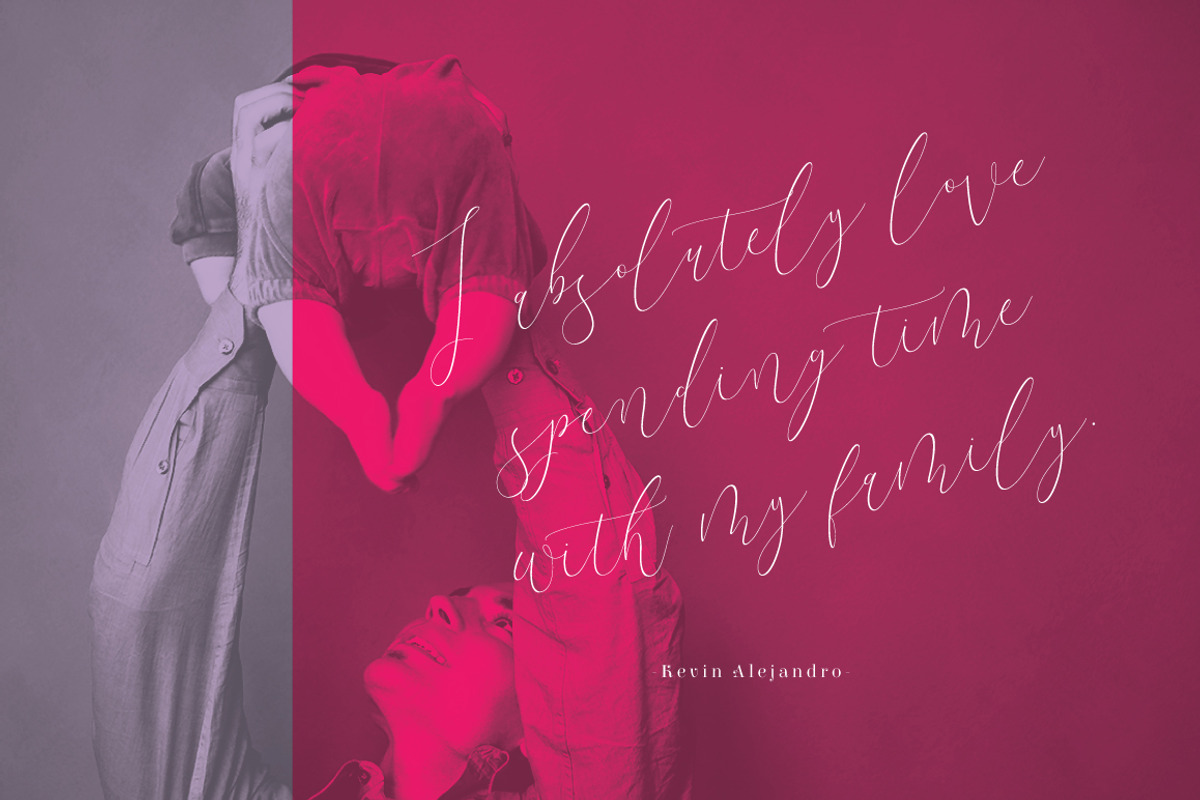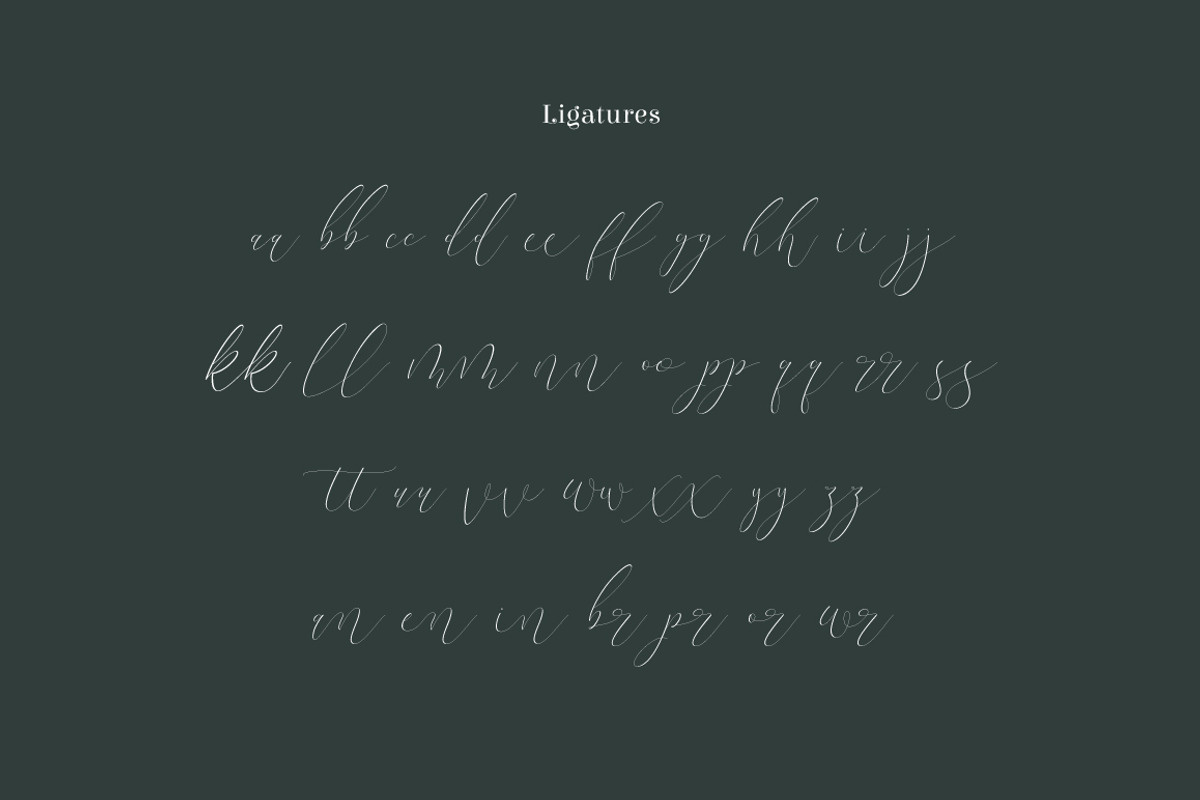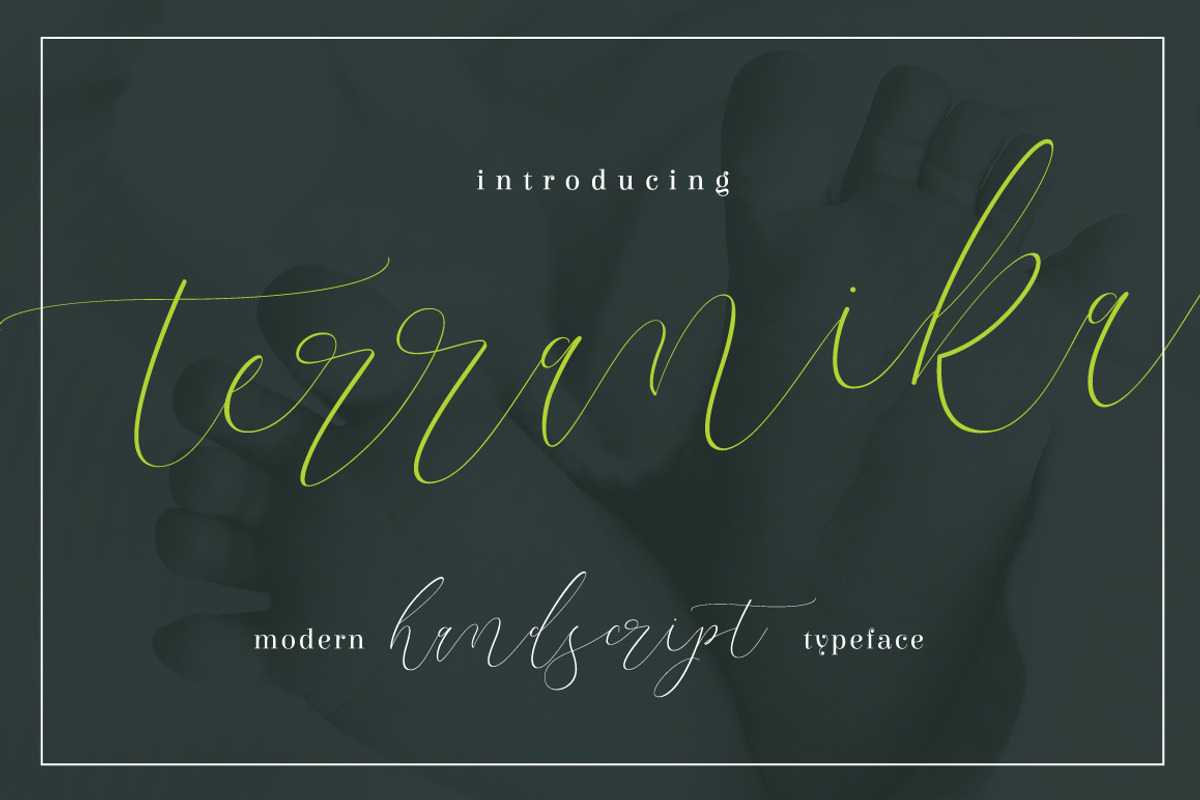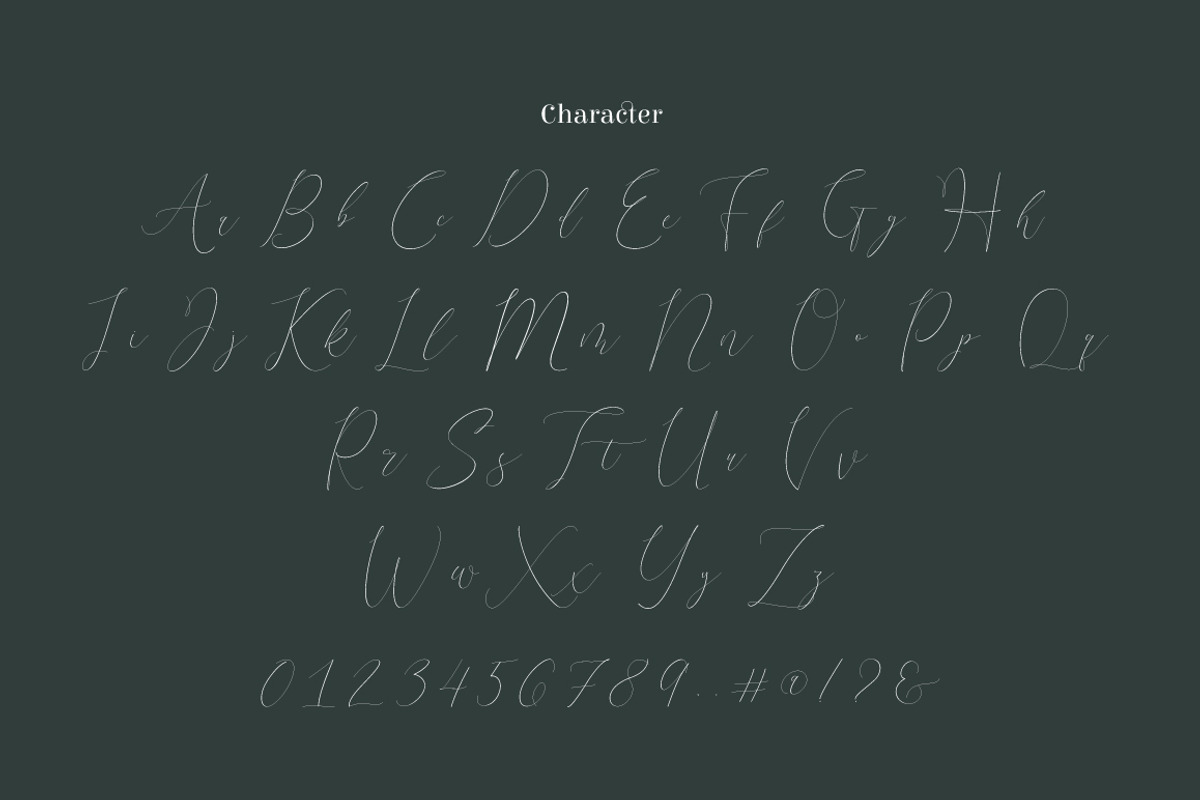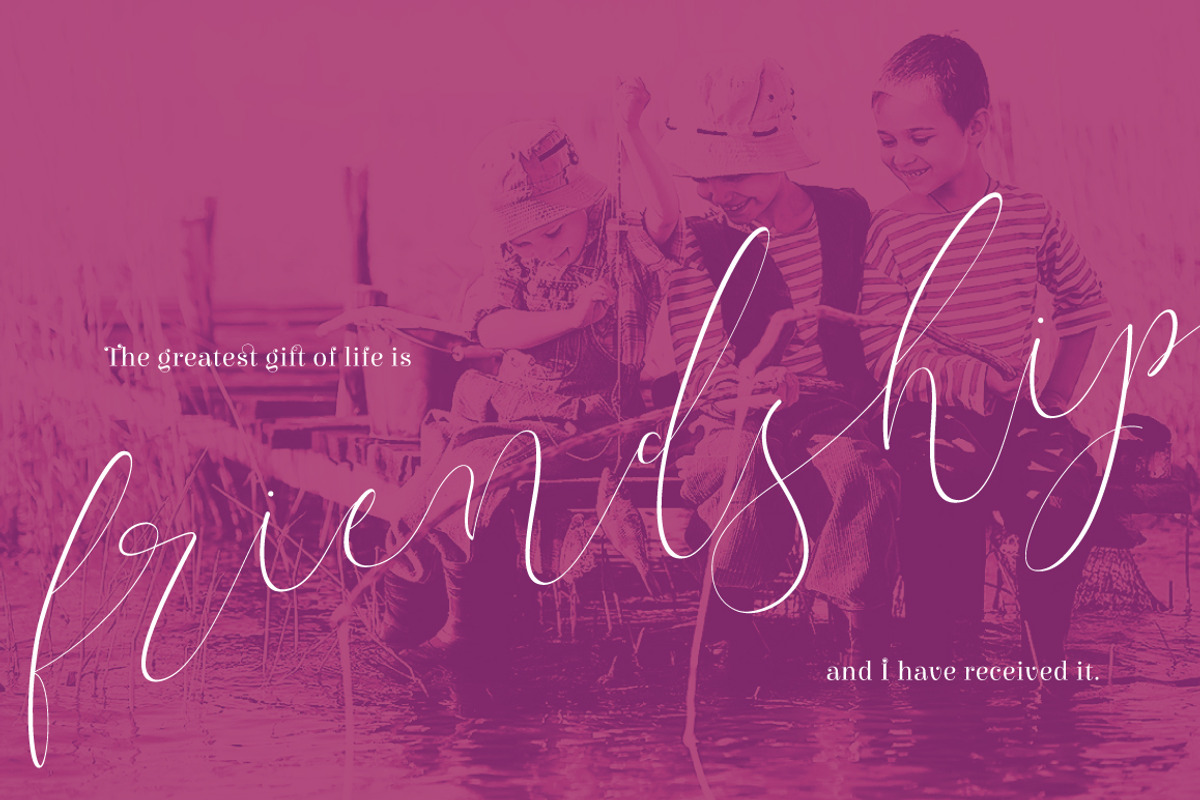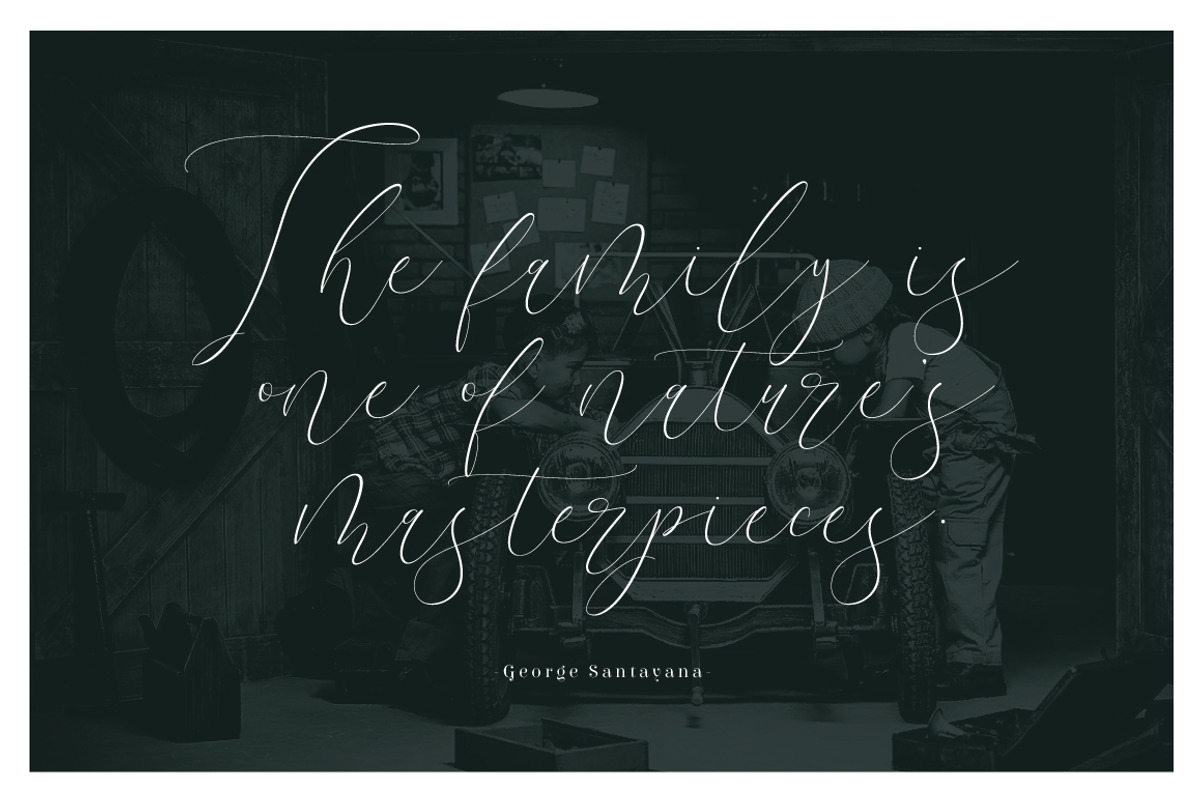
Terranika Typeface
Terranika is modern handscript font, every single letters have been carefully crafted to make your text looks beautiful. With modern script style this font will perfect for many different project ex: quotes, blog header, poster, wedding, branding, logo, fashion, apparel, letter, invitation, stationery, etc.
Terranika script including alternate glyph.
Uppercase & lowercase
International characters (Multilingual)
Punctuation & symbols
- Uppercase & lowercase
- Initials & finals
- International characters (Multilingual)
- Punctuation & symbols